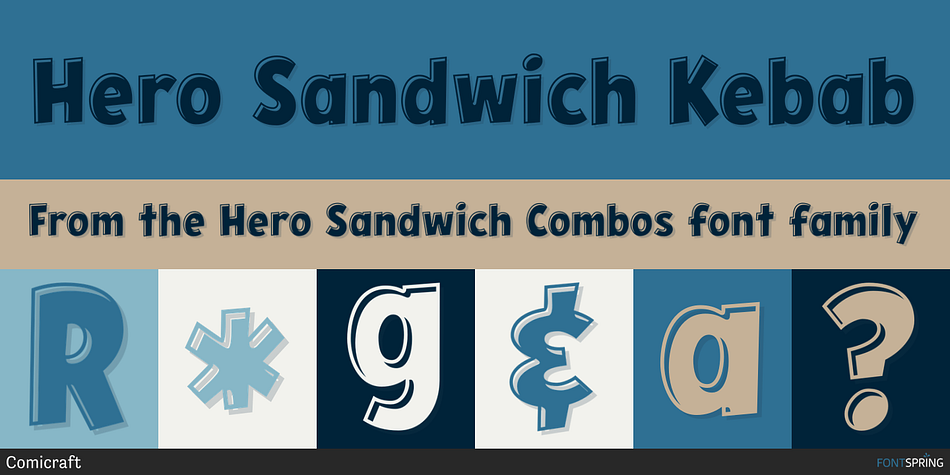
Hero Sandwich Kebab
Designed by John Roshell, Hero Sandwich Combos is a hand display font family. This typeface has eight styles and was published by Comicraft.
As comic book readers know all too well, team ups are every super hero’s bread and butter… when the brave and the bold are in a pickle, and super villains are running onion rings around them, here’s how they roll: They Meat! They Team-Up with your taste buds! They Fight Hunger! Yes, some hero combos may get along better than others, but they are always more powerful together. So take a footlong bite out of crime, and make the subways safe again with our mouthwatering HERO SANDWICH! Prepared with plastic gloves on by those awfully nice chaps at the Comicraft deli.
If you’re an avenging hero on the go, have no fear, we’ve pre-assembled these eight classic Hero Sandwich Combos! Because choosing your fillings shouldn’t get in the way of knocking out a supervillain’s fillings.